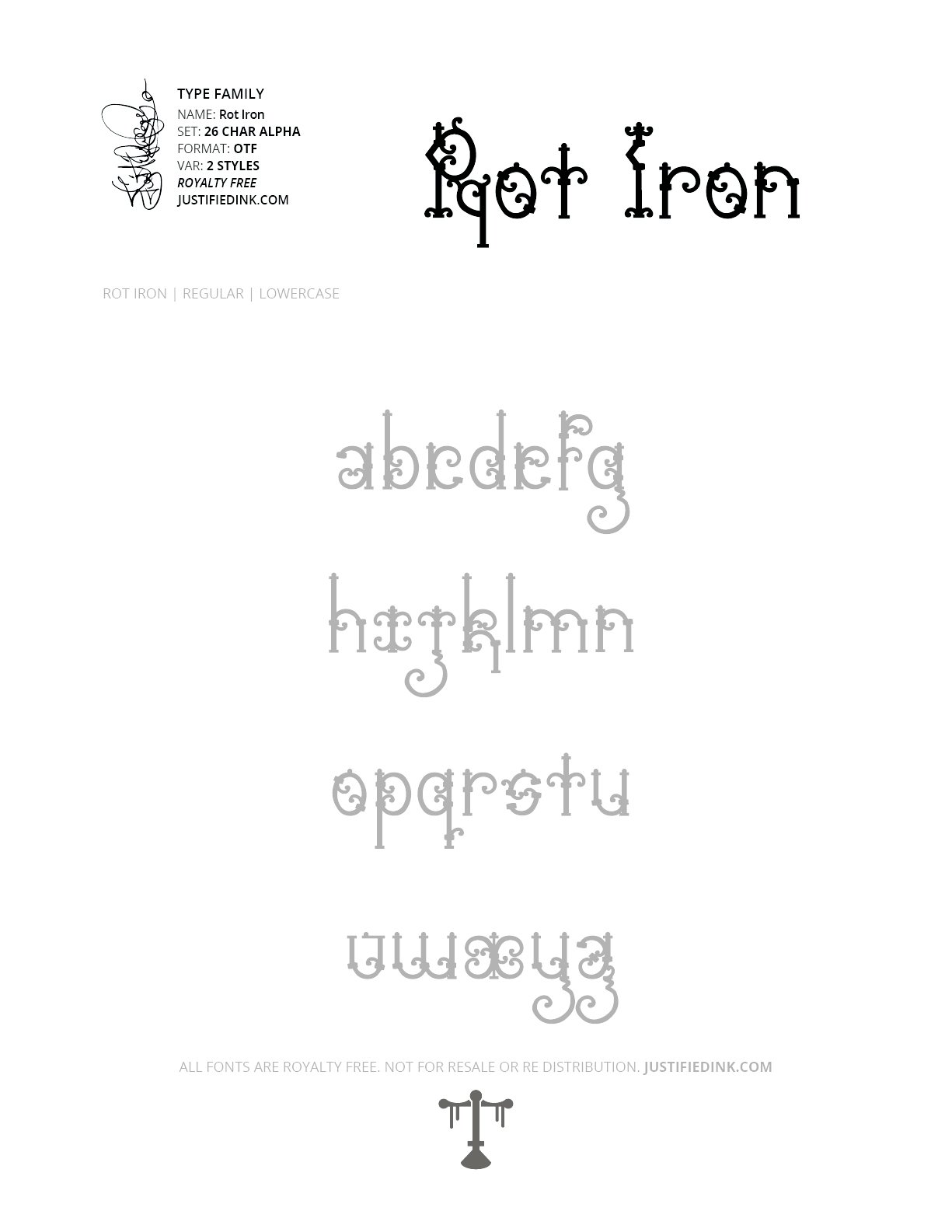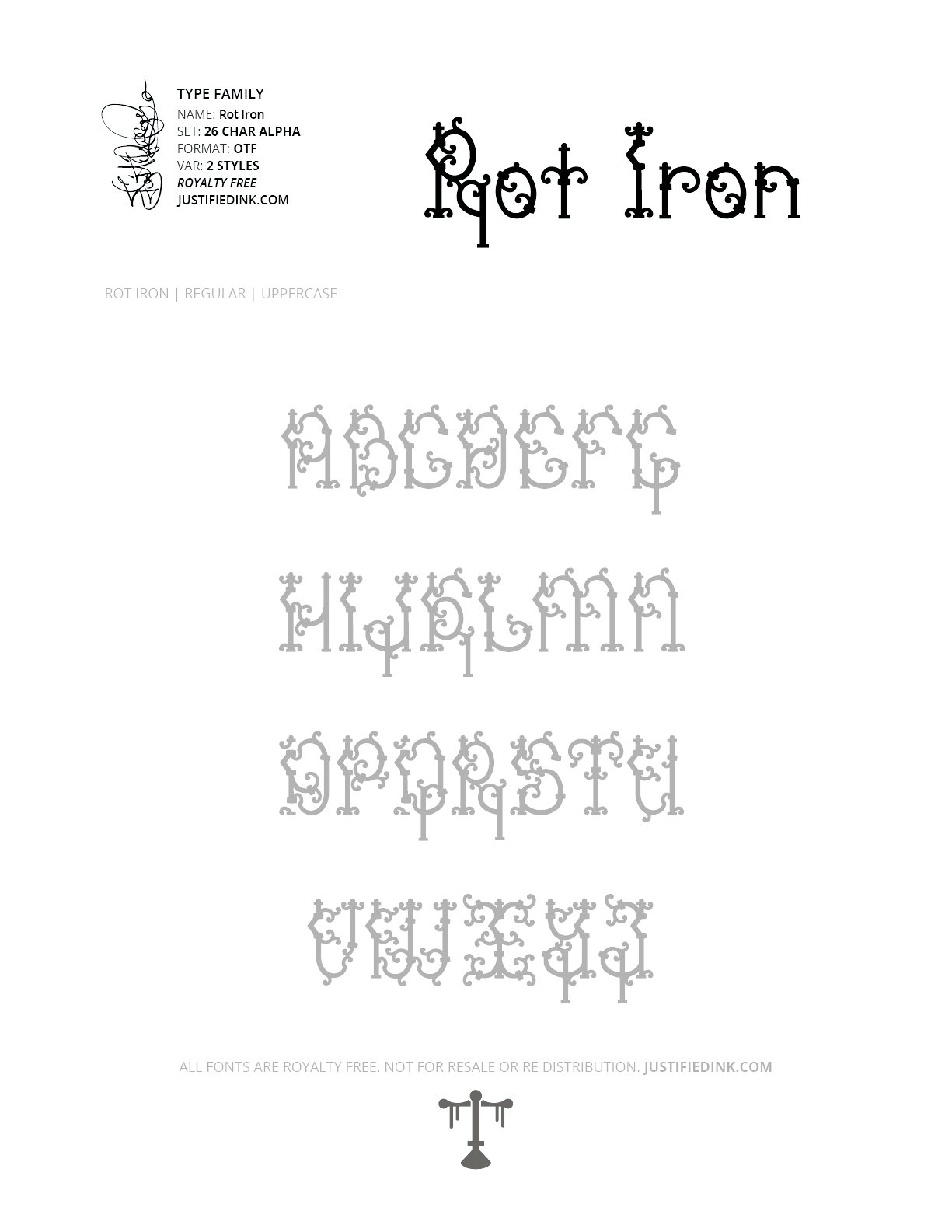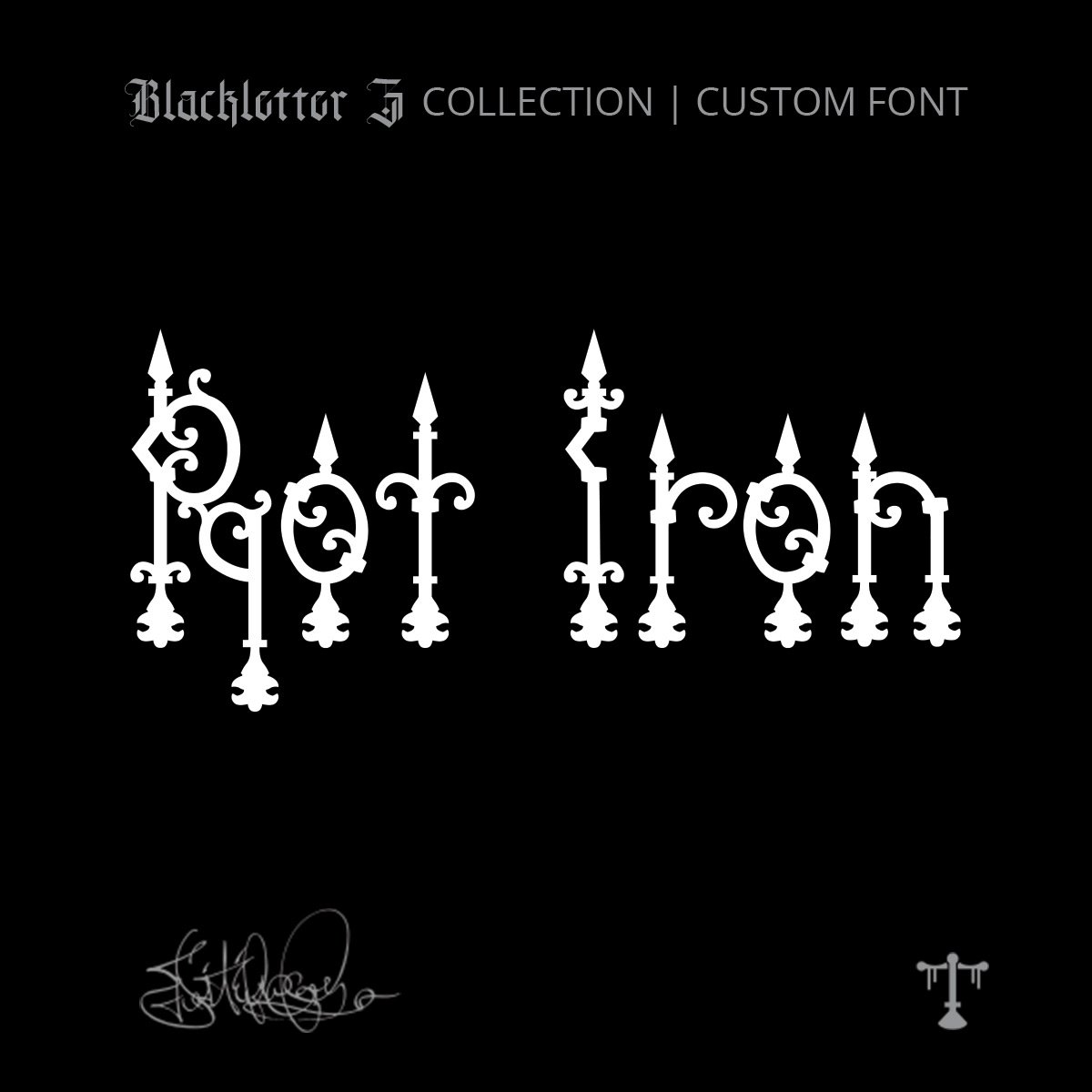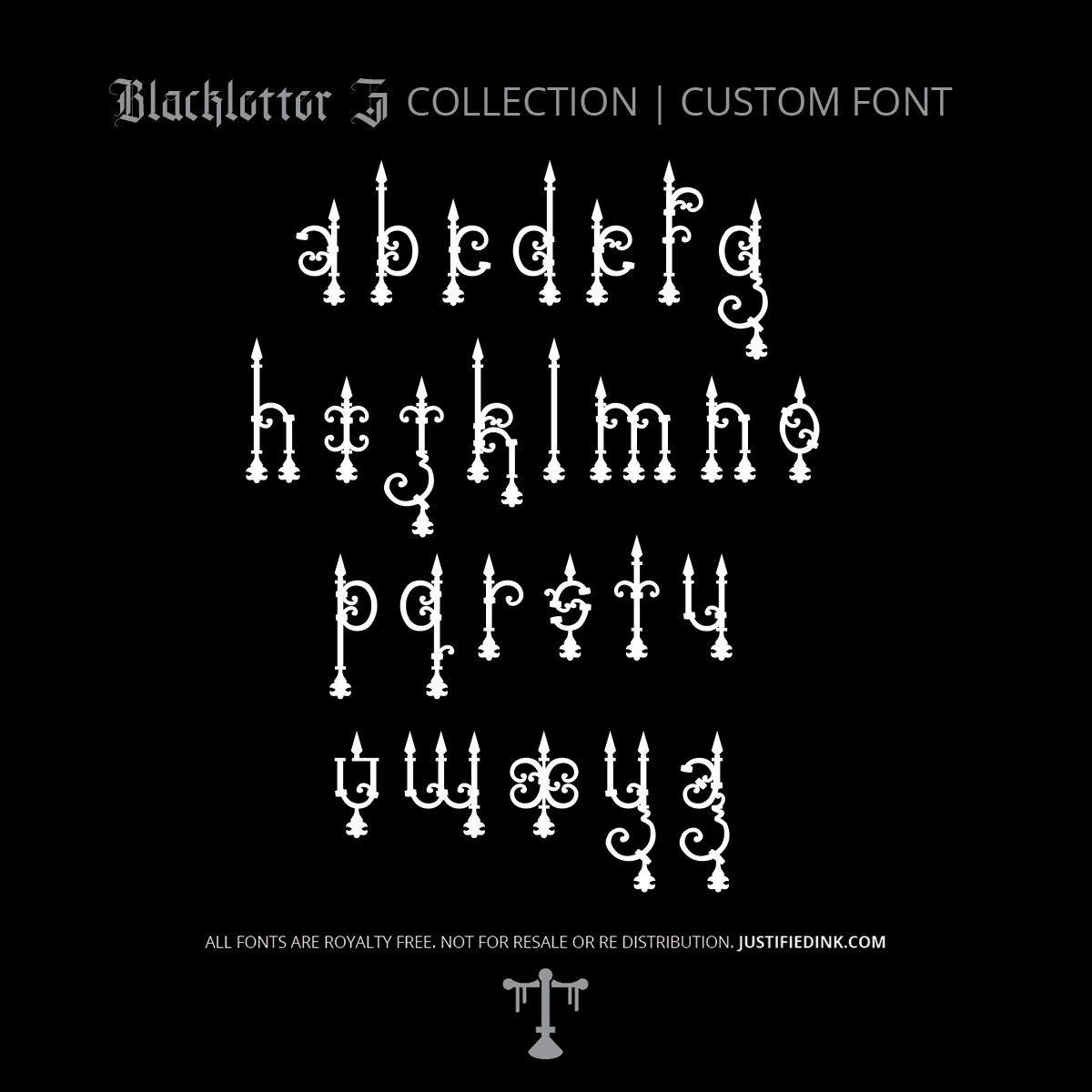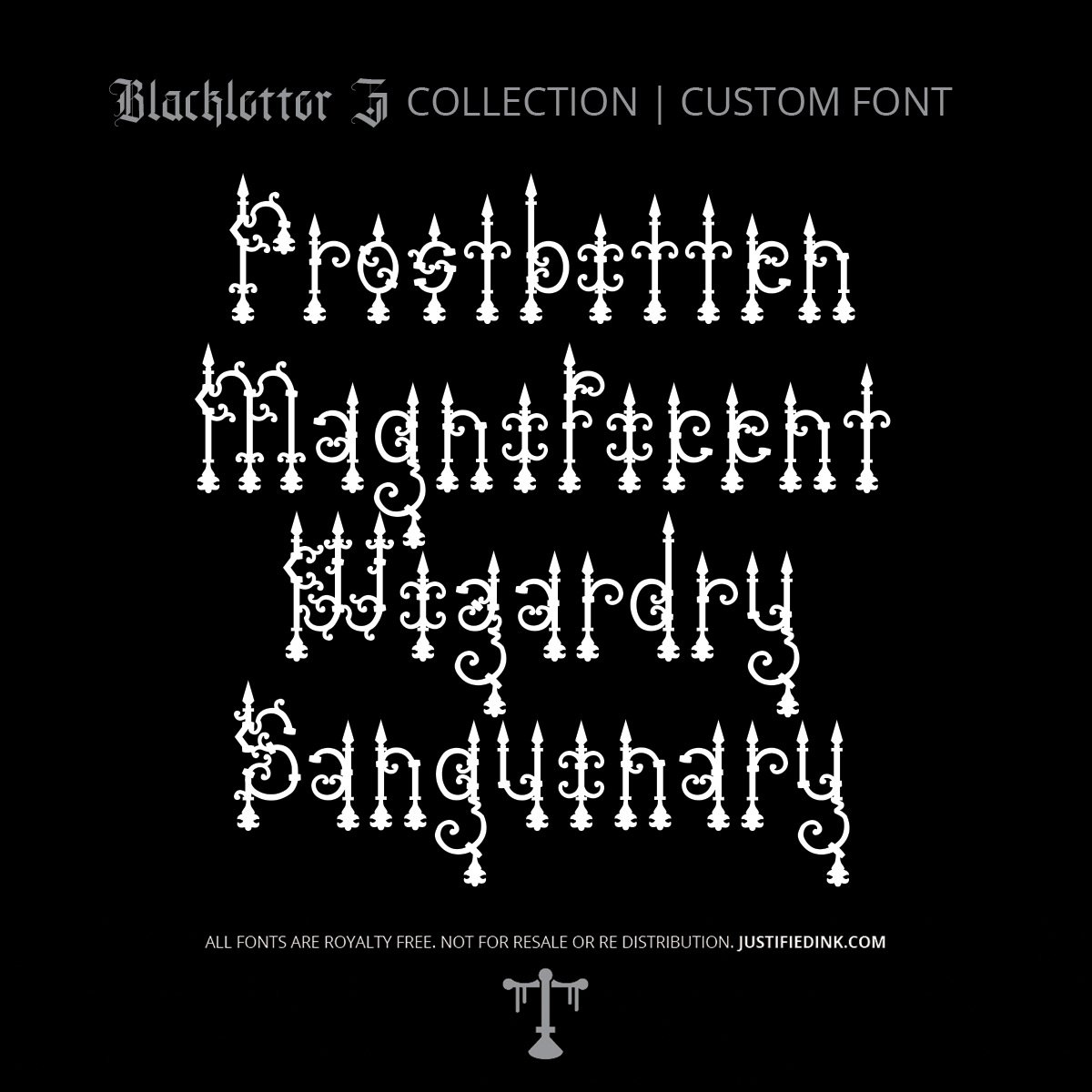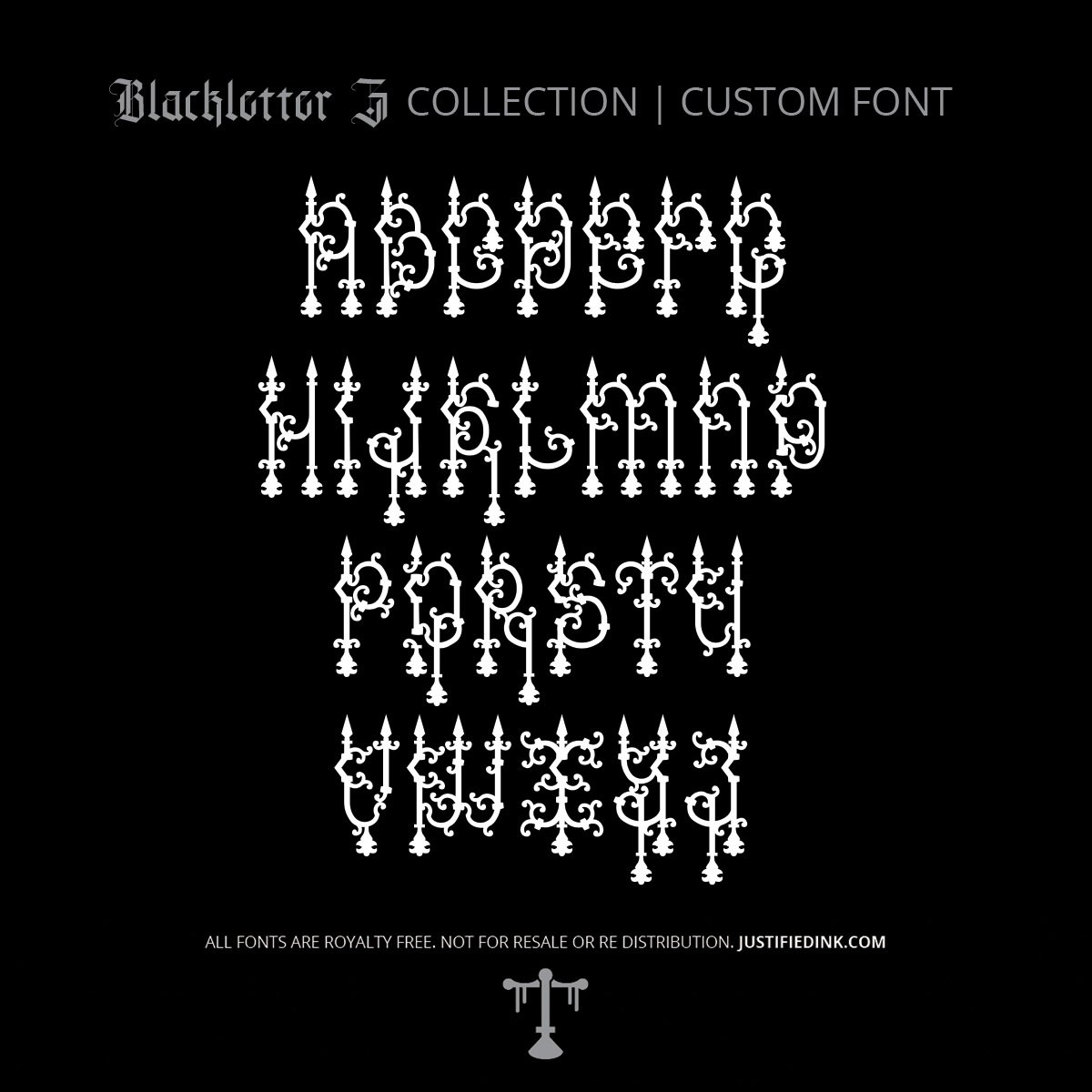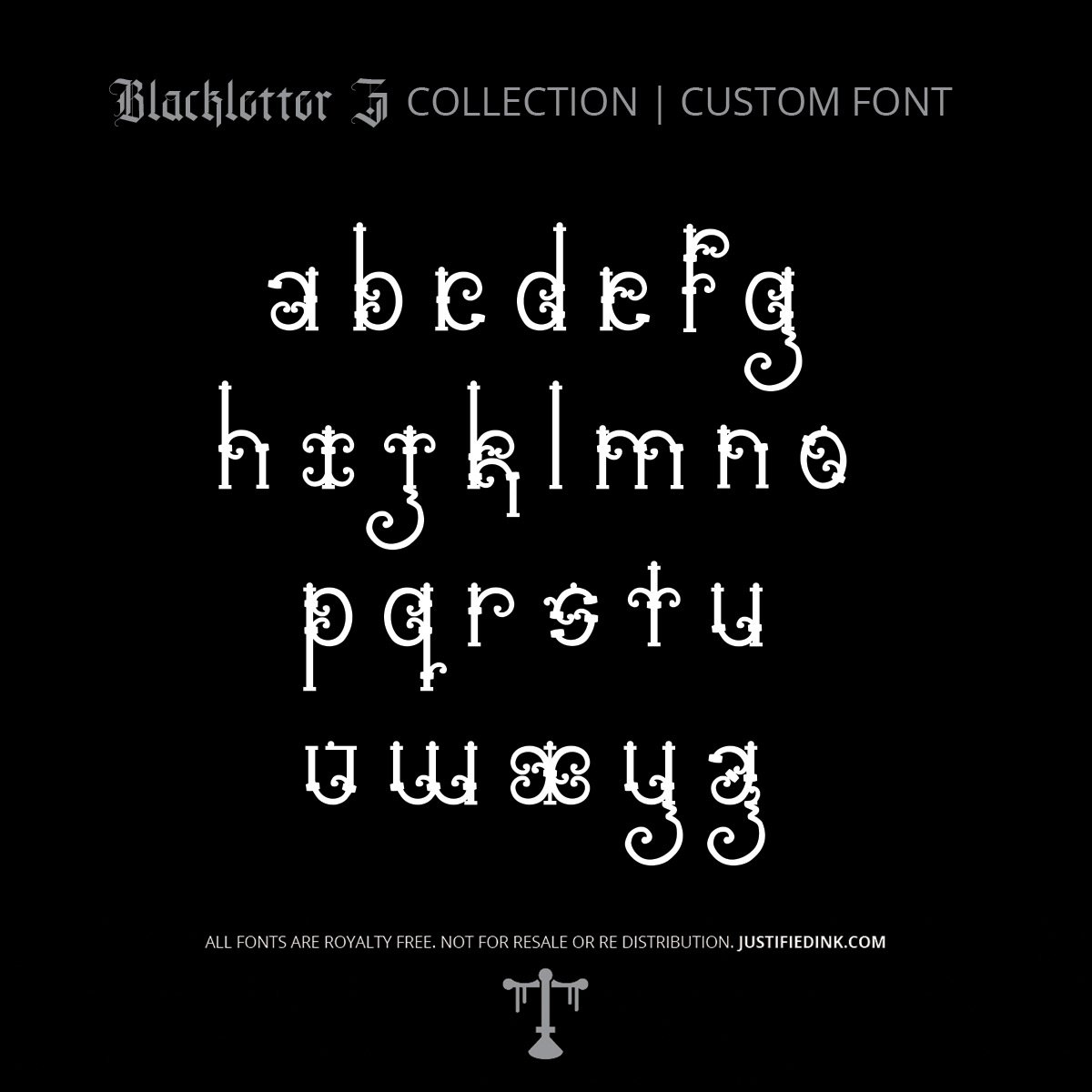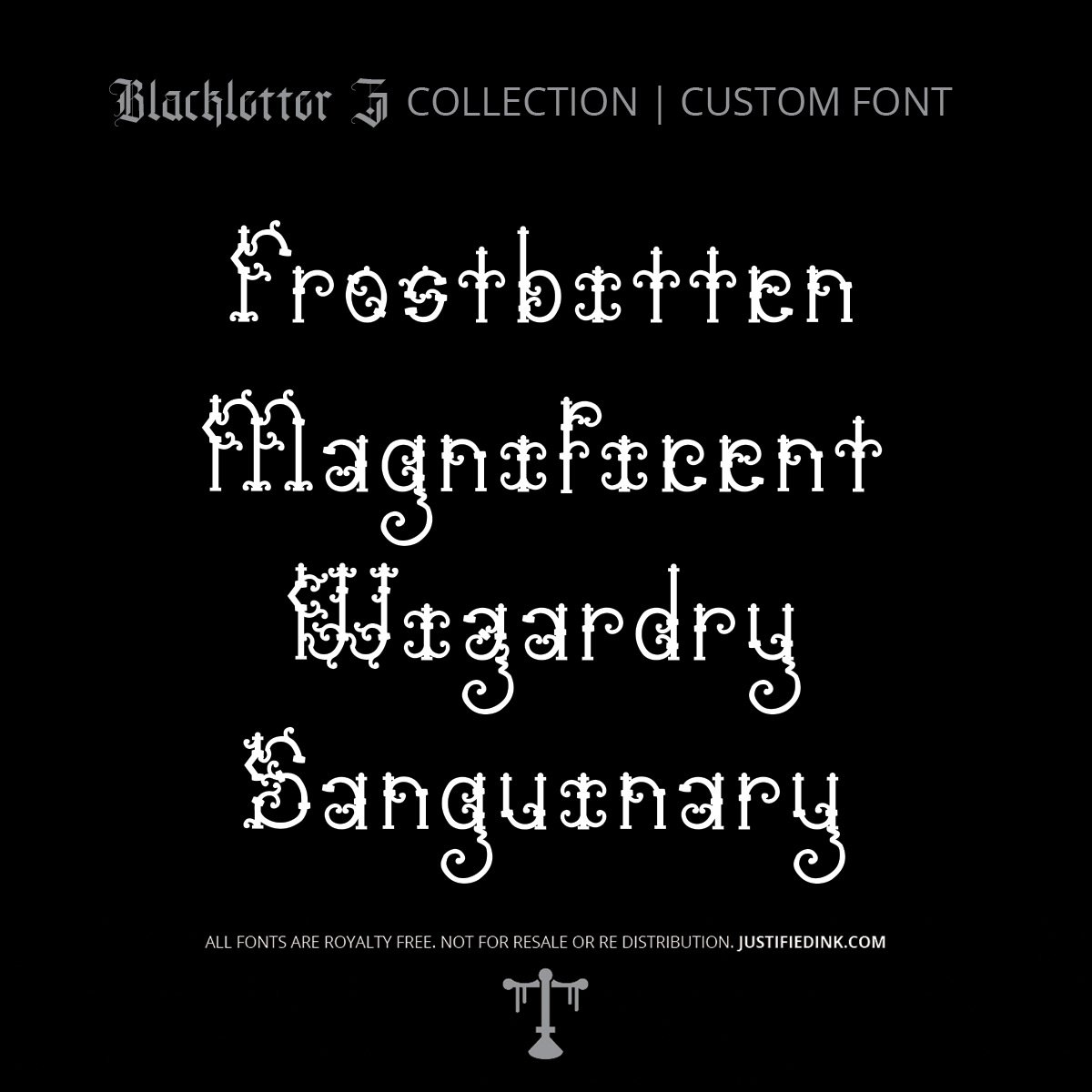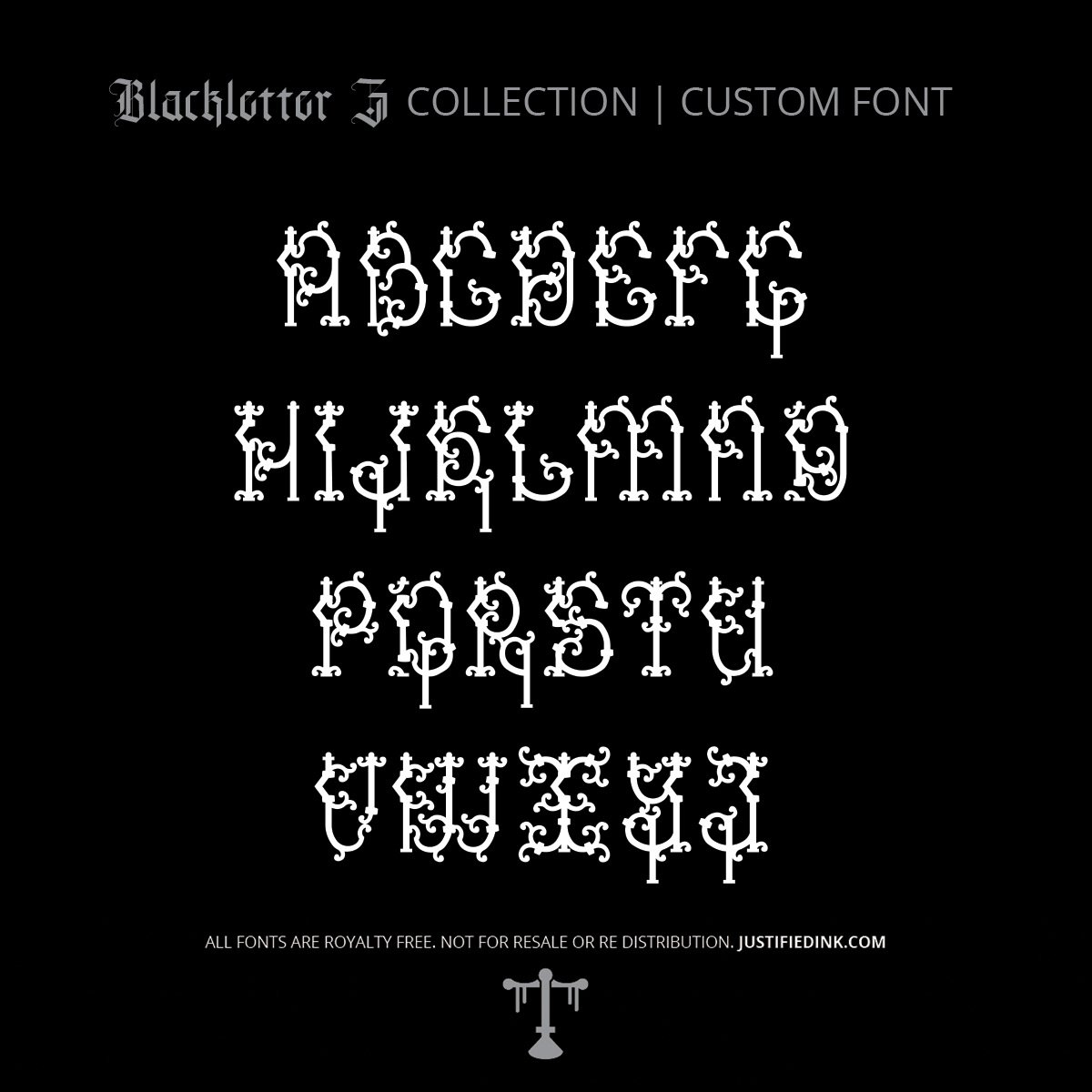
Rot Iron (2 styles) - Custom Font
Rot Iron (2 Styles) - Custom Font
Forged in Iron. Claimed by Time.
Rot Iron is an ornamental display font inspired by the elegance of Victorian wrought ironwork—towering gates, ivy-covered fences, forgotten cemeteries, and hand-forged railings that have weathered generations beneath open skies. Its foundation is rooted in clean gothic and foundational letterforms, but every character blossoms into elaborate flourishes, curling tendrils, sharp finials, and decorative foliage that feel as though they were forged in a blacksmith's fire before slowly surrendering to rust and time.
Despite its lavish ornamentation, Rot Iron maintains a disciplined structure that keeps it surprisingly readable. Graceful curves intertwine with crisp verticals, while branching details echo climbing vines reclaiming old ironwork. The result is a typeface that feels both architectural and organic—equal parts craftsmanship and decay. Perfect for gothic branding, tattoo artwork, luxury packaging, fantasy worlds, haunted estates, wedding stationery, book covers, apparel, and any design seeking timeless elegance with a darker edge.